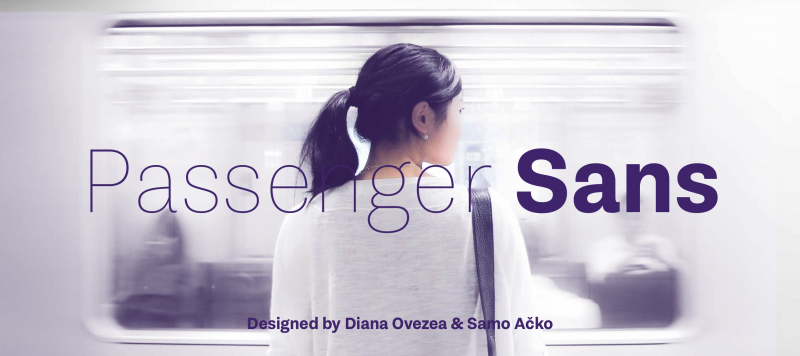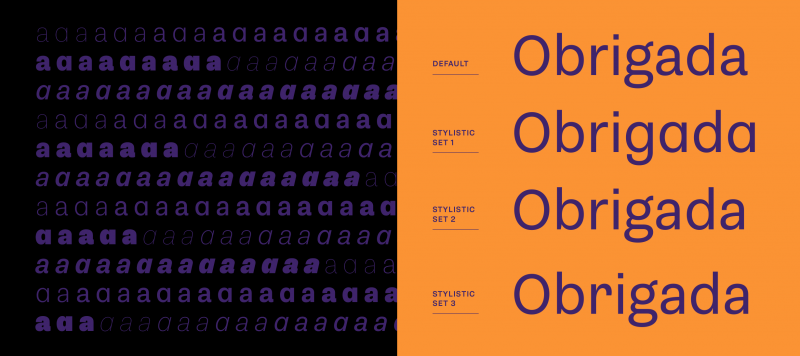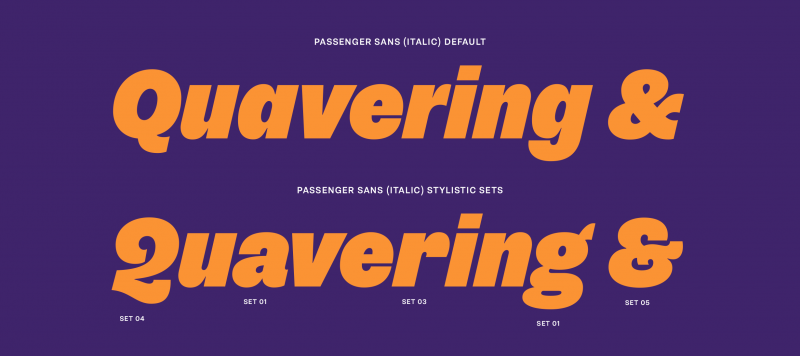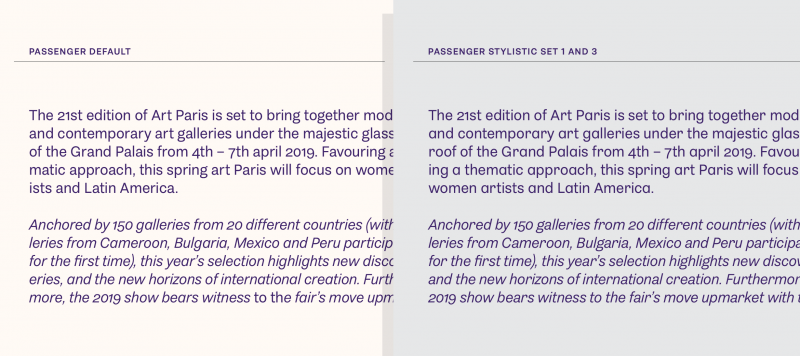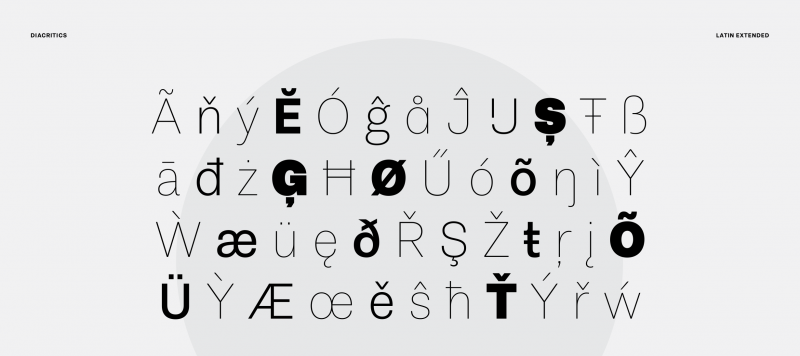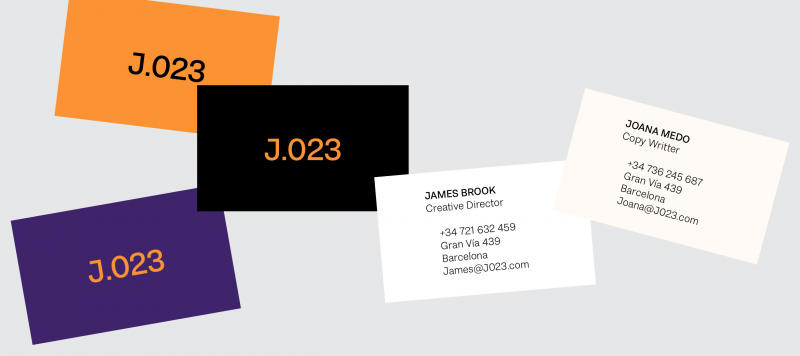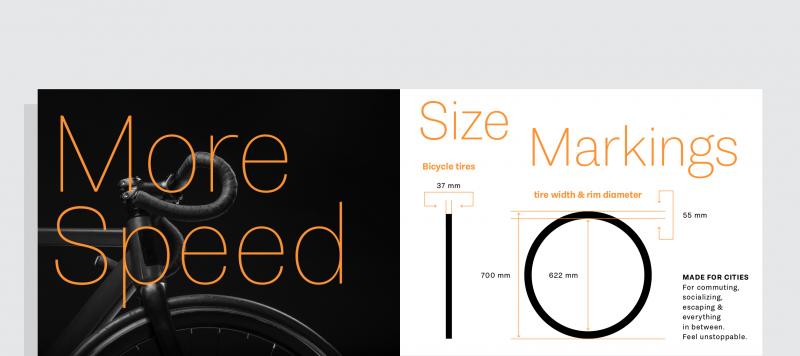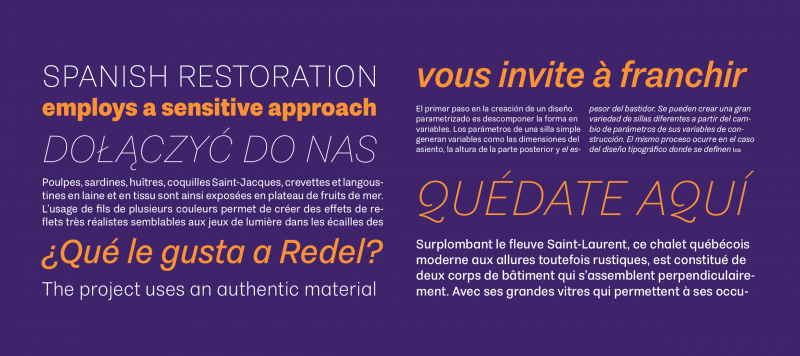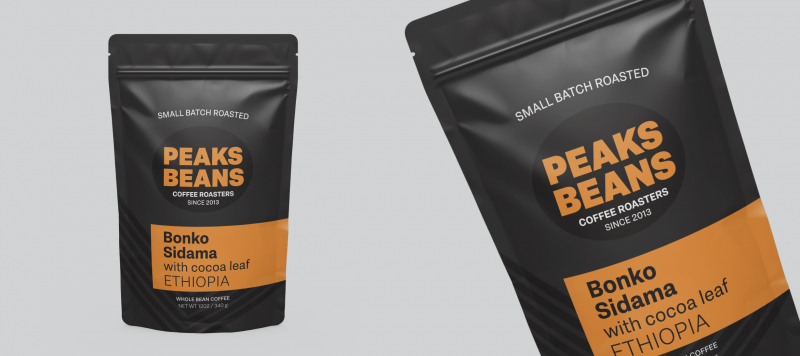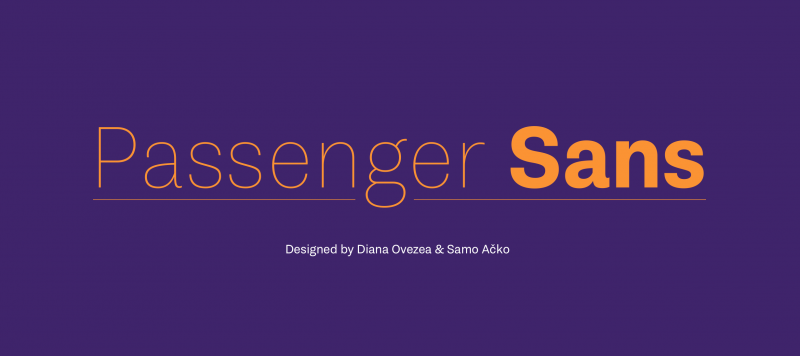
Passenger Sans is a large family designed for editorial projects. You can build great design systems using just its fonts, or you could combine them with two related ITF families: Passenger Serif and Passenger Display. Passenger Sans’s letterforms have compact proportions; their apertures are small. In the upright fonts, all strokes end at horizontal or vertical angles. Long passages of text set in the typeface are comfortable to read. Passenger Sans’s fonts have are proportionally-spaced lining figures as the default numerals, but with OpenType features, oldstyle figures and tabular figures are also available. In the upright fonts, the ‘a’ and the ‘g’ are double-storied, while in the italics they’re single-storied – the ‘opposite’ version is always available as an OpenType alternate. Fonts have alternate forms of ‘Q’ and the ampersand (&) as well.
| Family Name | Passenger Sans |
|---|---|
| Designer(s) | Diana Ovezea, Samo Ačko |
| Classification | Sans |